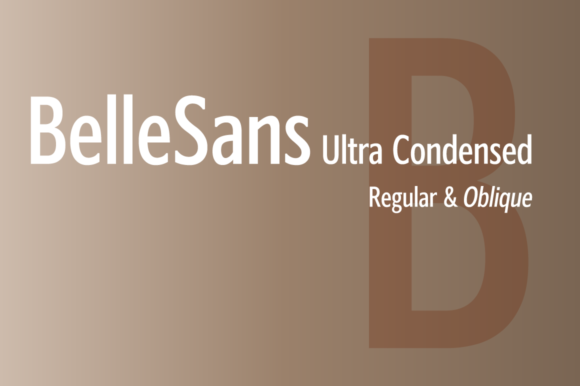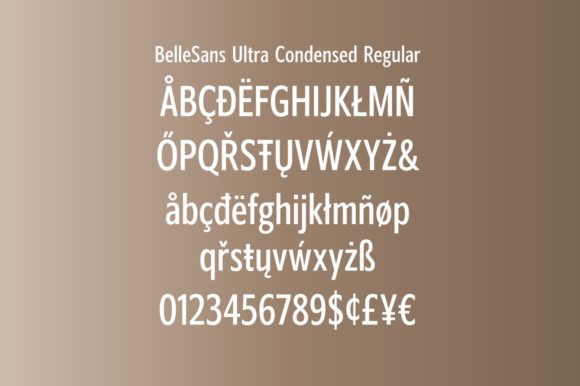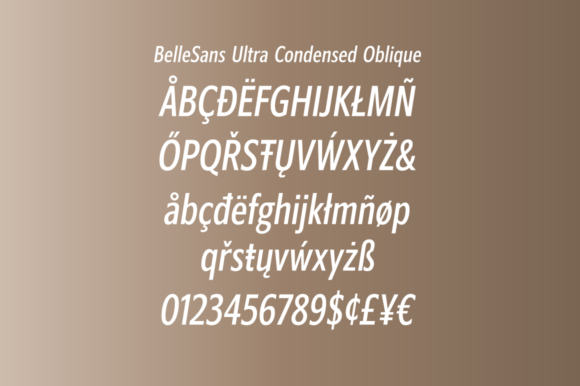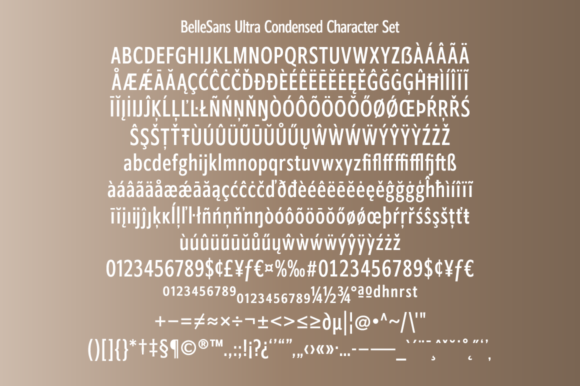
BelleSans Ultra Condensed Regular and Oblique Font
BelleSans is a clean, straightforward sans serif font. It offers great legibility for on-screen usage, apps, social media posts, and more! Add it to your most creative ideas, and notice how it makes them stand out!